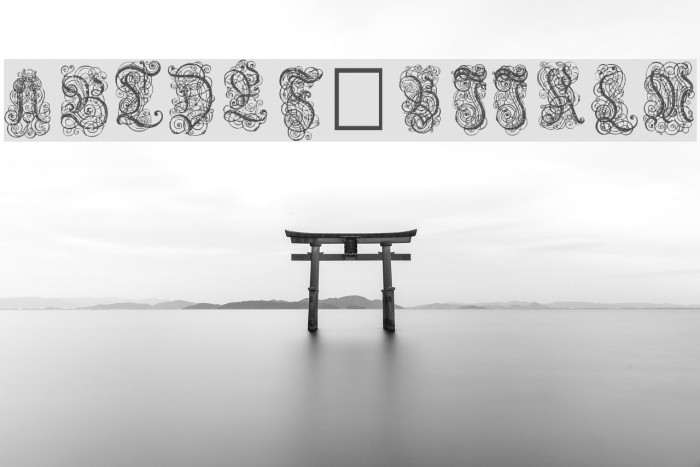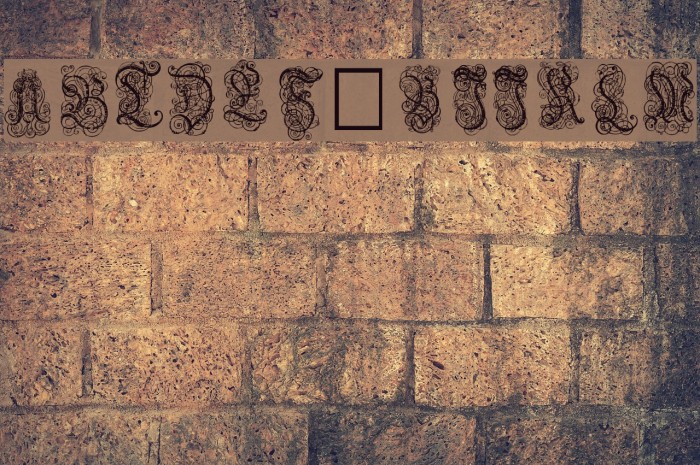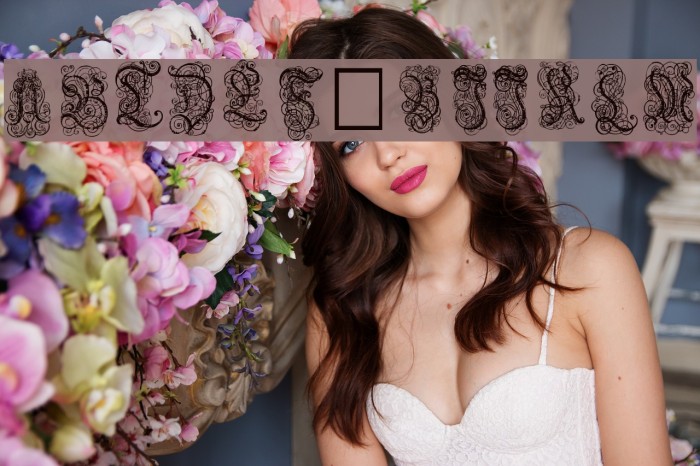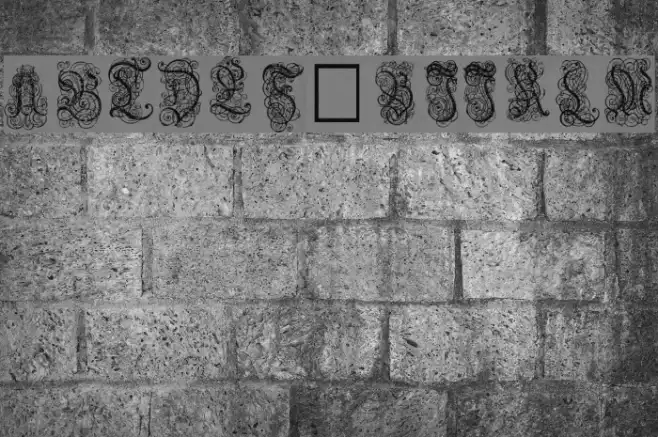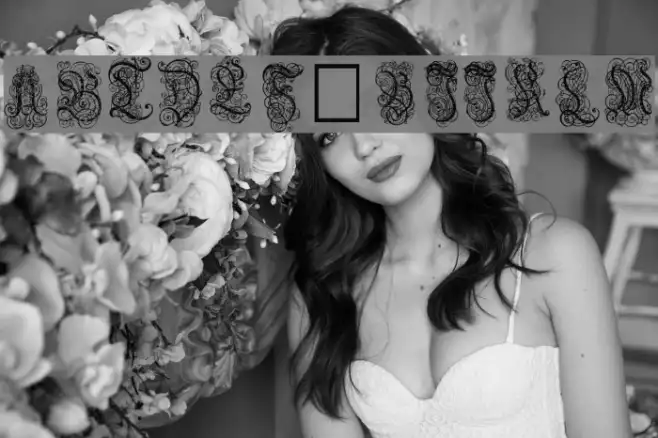
Nardis Font
This font is an intricate and highly decorative typeface, characterized by elaborate swirls and flourishes that envelop each letter. The ornate design gives it a vintage and classical feel, reminiscent of Victorian-era aesthetics. Each character is uniquely crafted with detailed embellishments, making it ideal for creating a luxurious and sophisticated look. The complexity of the design suggests a hand-drawn quality, adding to its charm and elegance. This font is best suited for projects that require a touch of opulence and grandeur, such as wedding invitations, high-end branding, or artistic posters.
An ornate and decorative font with intricate swirls and flourishes.
- Proposed Projects: Ideal for wedding invitations, luxury branding, artistic posters, and vintage-themed designs.
- Overall Style: Vintage
- Use Case: Logos, Headlines